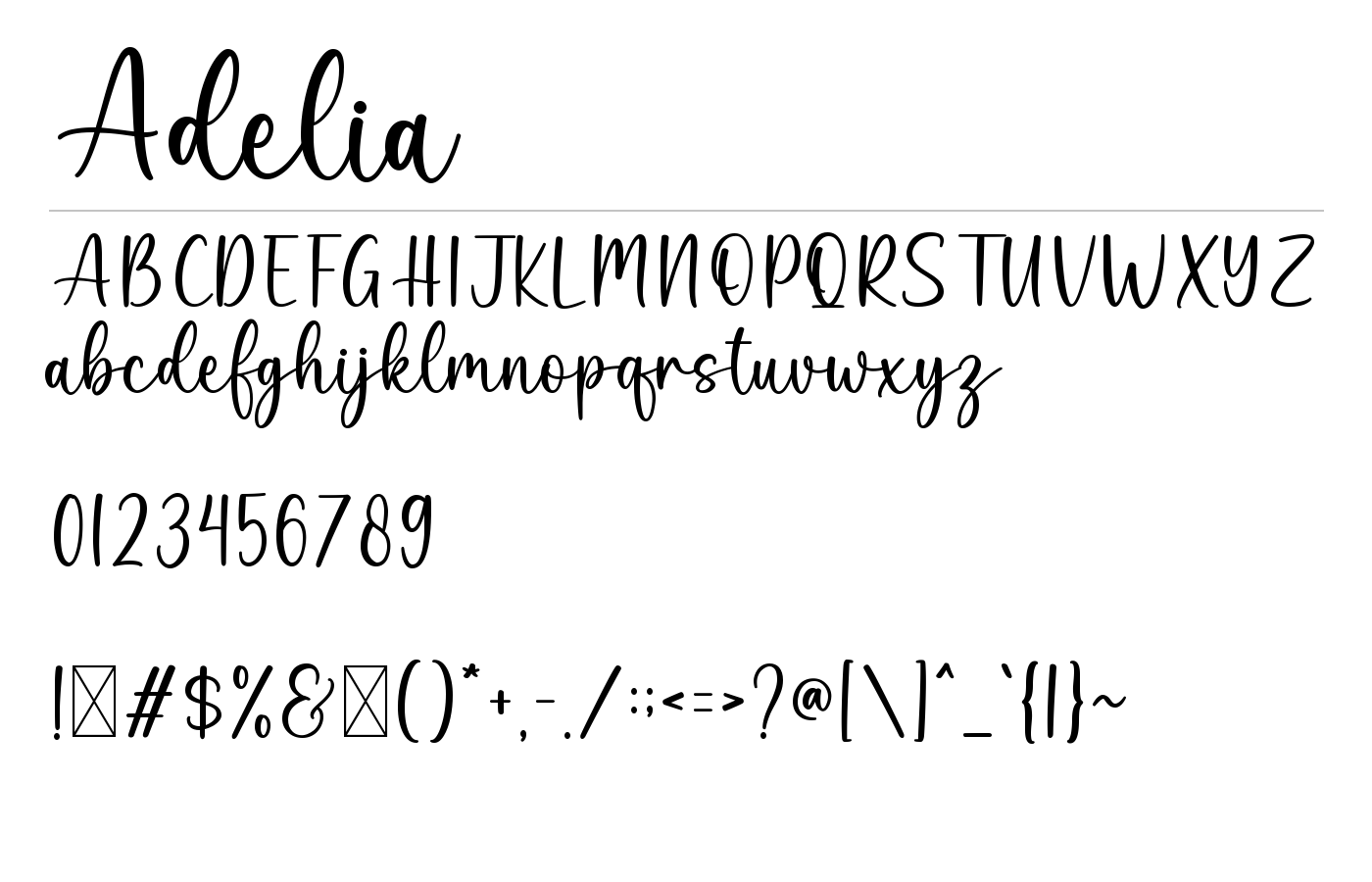
Adelia is a charming handwritten script font with a graceful, casual style featuring both tall, narrow uppercase letters and flowing, double-story lowercase characters. Its light weight and delicate strokes give it an elegant yet approachable appearance, perfect for adding a personal, friendly touch to invitations, branding, and creative projects. This font works well in designs that seek warmth and personality, such as logos, packaging, and social media graphics.
Adelia Font
About Adelia Font
| Font family | Adelia Font |
| Designer | Graphix Line Studio |